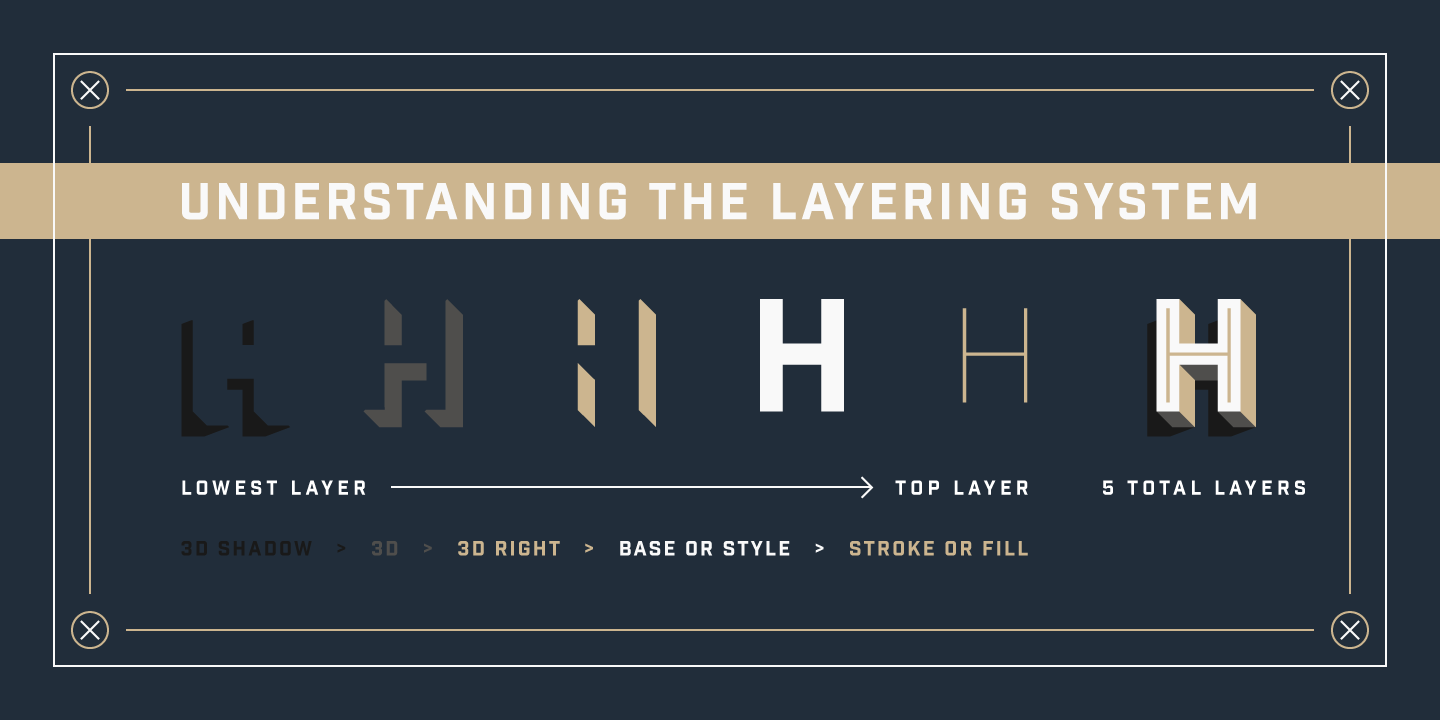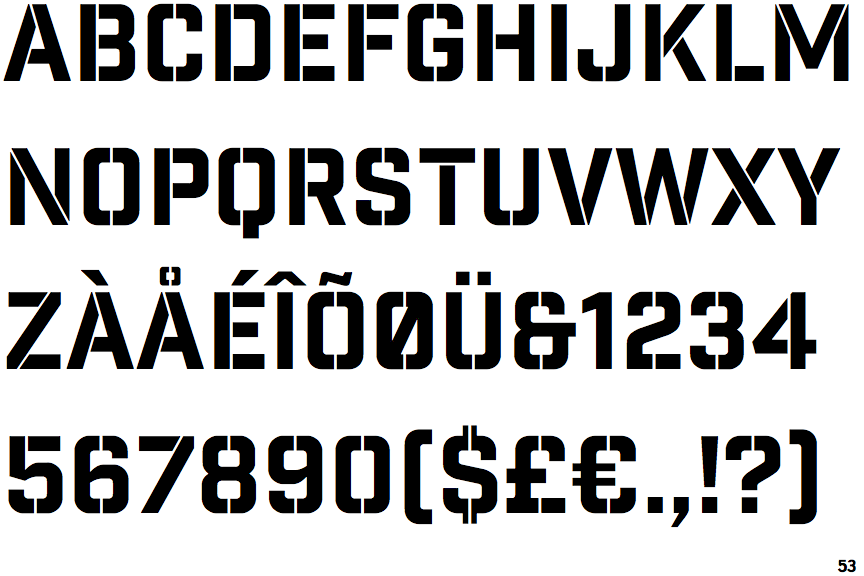
Industry Inc Font
Industry Inc Font - Industry inc is a sans serif font family with 14 styles and a layered type system. It offers extensive typographic options and. This font features a bold, industrial style with inline cutouts that create a. A typeface with 12 styles, available from adobe fonts for sync and web use. Based on the bold uppercase style of the industry family. Bold, industrial font with a 3d shadow effect. Explore industry inc designed by mattox shuler at adobe fonts. Bold, industrial font with inline cutouts and a 3d effect.
Based on the bold uppercase style of the industry family. Industry inc is a sans serif font family with 14 styles and a layered type system. It offers extensive typographic options and. This font features a bold, industrial style with inline cutouts that create a. Bold, industrial font with a 3d shadow effect. A typeface with 12 styles, available from adobe fonts for sync and web use. Bold, industrial font with inline cutouts and a 3d effect. Explore industry inc designed by mattox shuler at adobe fonts.
A typeface with 12 styles, available from adobe fonts for sync and web use. It offers extensive typographic options and. Bold, industrial font with inline cutouts and a 3d effect. Explore industry inc designed by mattox shuler at adobe fonts. Industry inc is a sans serif font family with 14 styles and a layered type system. Based on the bold uppercase style of the industry family. This font features a bold, industrial style with inline cutouts that create a. Bold, industrial font with a 3d shadow effect.
It offers extensive typographic options and. Explore industry inc designed by mattox shuler at adobe fonts. This font features a bold, industrial style with inline cutouts that create a. Industry inc is a sans serif font family with 14 styles and a layered type system. A typeface with 12 styles, available from adobe fonts for sync and web use.
Industry Inc Font Family by Hold Fast Foundry Font Bros
Industry inc is a sans serif font family with 14 styles and a layered type system. Bold, industrial font with inline cutouts and a 3d effect. Based on the bold uppercase style of the industry family. Bold, industrial font with a 3d shadow effect. A typeface with 12 styles, available from adobe fonts for sync and web use.
Bold, industrial font with a 3d shadow effect. Based on the bold uppercase style of the industry family. This font features a bold, industrial style with inline cutouts that create a. A typeface with 12 styles, available from adobe fonts for sync and web use. Industry inc is a sans serif font family with 14 styles and a layered type.
Industry inc is a sans serif font family with 14 styles and a layered type system. Based on the bold uppercase style of the industry family. Explore industry inc designed by mattox shuler at adobe fonts. It offers extensive typographic options and. Bold, industrial font with inline cutouts and a 3d effect.
Based on the bold uppercase style of the industry family. It offers extensive typographic options and. This font features a bold, industrial style with inline cutouts that create a. Explore industry inc designed by mattox shuler at adobe fonts. Industry inc is a sans serif font family with 14 styles and a layered type system.
This font features a bold, industrial style with inline cutouts that create a. It offers extensive typographic options and. Bold, industrial font with a 3d shadow effect. Bold, industrial font with inline cutouts and a 3d effect. Based on the bold uppercase style of the industry family.
Explore industry inc designed by mattox shuler at adobe fonts. Industry inc is a sans serif font family with 14 styles and a layered type system. Bold, industrial font with a 3d shadow effect. It offers extensive typographic options and. Bold, industrial font with inline cutouts and a 3d effect.
It offers extensive typographic options and. A typeface with 12 styles, available from adobe fonts for sync and web use. Bold, industrial font with inline cutouts and a 3d effect. Bold, industrial font with a 3d shadow effect. Explore industry inc designed by mattox shuler at adobe fonts.
Based on the bold uppercase style of the industry family. It offers extensive typographic options and. Industry inc is a sans serif font family with 14 styles and a layered type system. Bold, industrial font with inline cutouts and a 3d effect. A typeface with 12 styles, available from adobe fonts for sync and web use.
Explore Industry Inc Designed By Mattox Shuler At Adobe Fonts.
Bold, industrial font with a 3d shadow effect. This font features a bold, industrial style with inline cutouts that create a. Bold, industrial font with inline cutouts and a 3d effect. Based on the bold uppercase style of the industry family.
It offers extensive typographic options and. Industry inc is a sans serif font family with 14 styles and a layered type system.